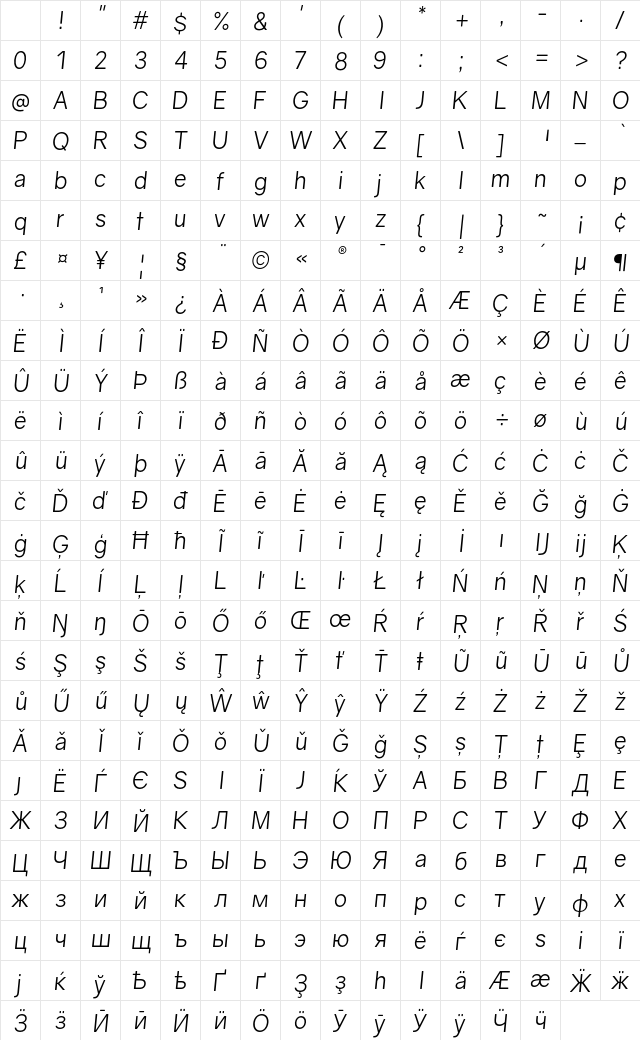
Complete Gravity Book Italic glyph index. Displaying only characters natively supported by Gravity Book Italic font.
Gravity is a composed and adaptable typeface that performs quietly and consistently across a wide range of design contexts. The slanted form adds forward momentum and visual energy.
Pro Tip: Use Gravity for emphasis, pull quotes, and subheadings where its slanted energy can add rhythm to the layout.